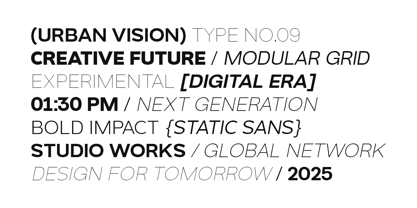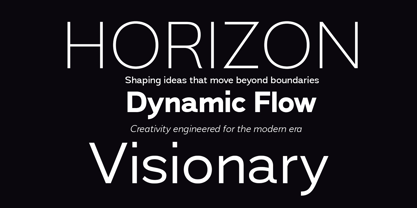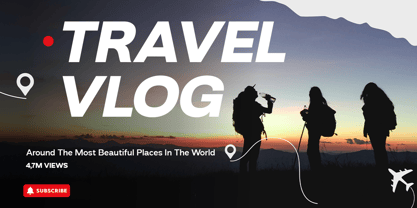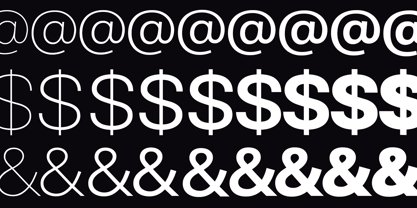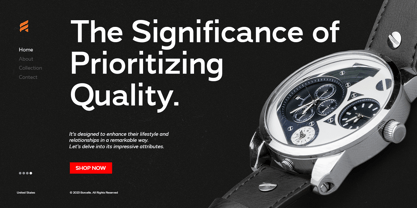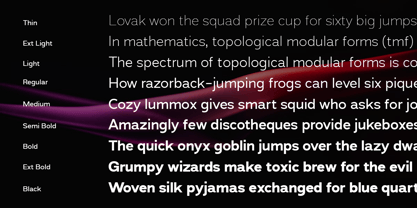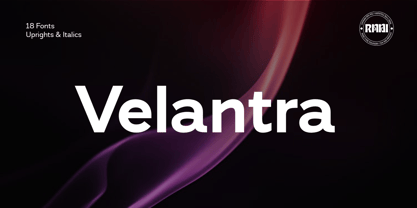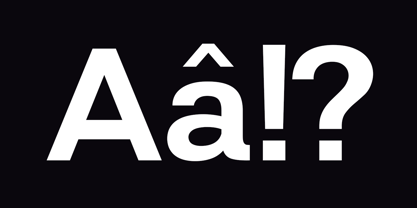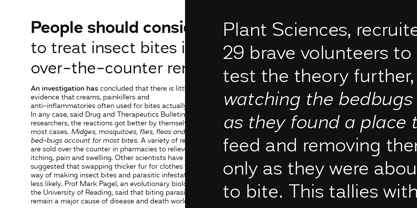
Velantra
by RNDI Type Foundry
The Velantra Font Family was designed by Randi Ilhamsyah and published by RNDI Type Foundry. Velantra contains 18 styles and family package options. More about this family
Velantra is a modern sans-serif typeface designed with versatility and clarity in mind. With 18 styles including uprights and italics, it offers a complete typographic system for both display and text use. Featuring clean geometry, balanced proportions, and a full weight range from Thin to Black, Velantra adapts seamlessly to branding, editorial design, digital interfaces, and contemporary layouts. The italics add a dynamic, expressive touch while maintaining readability and consistency. Perfect for headlines, body text, logos, posters, and UI/UX projects, Velantra delivers a modern, professional, and timeless look that fits across various creative fields.
Designers: Randi Ilhamsyah
Foundry: RNDI Type Foundry